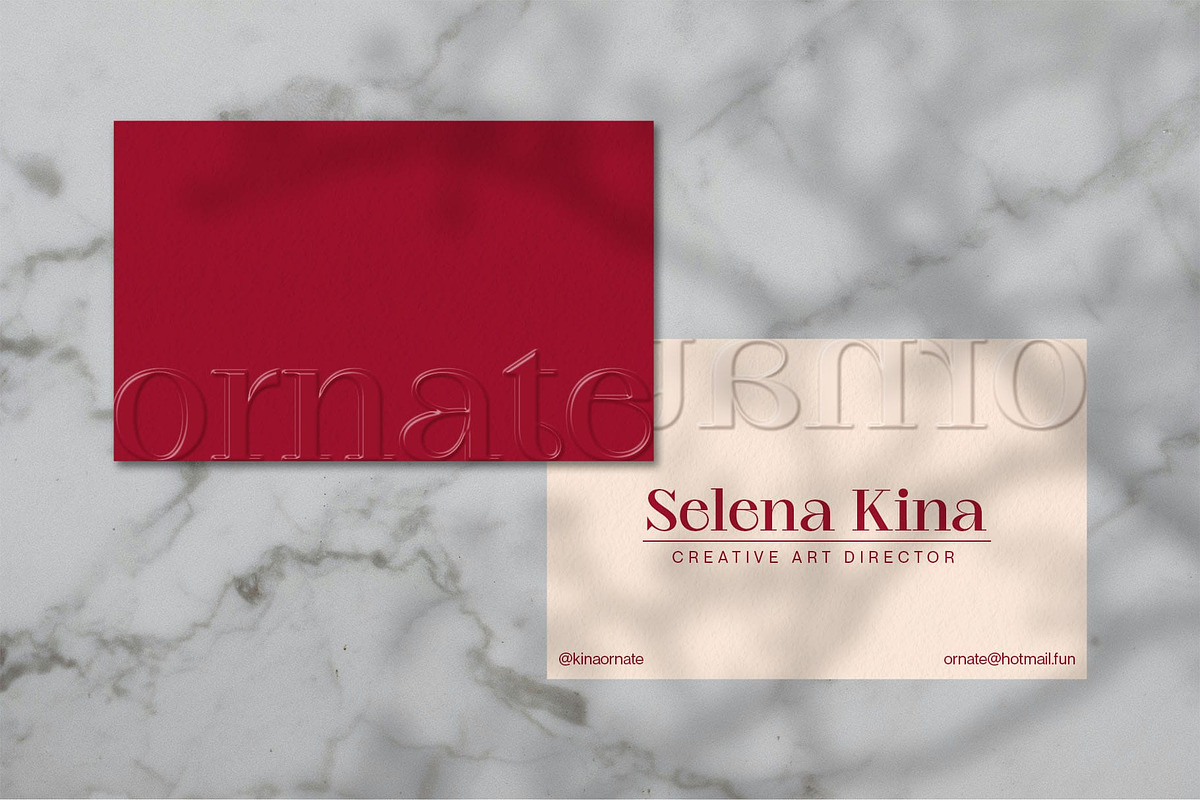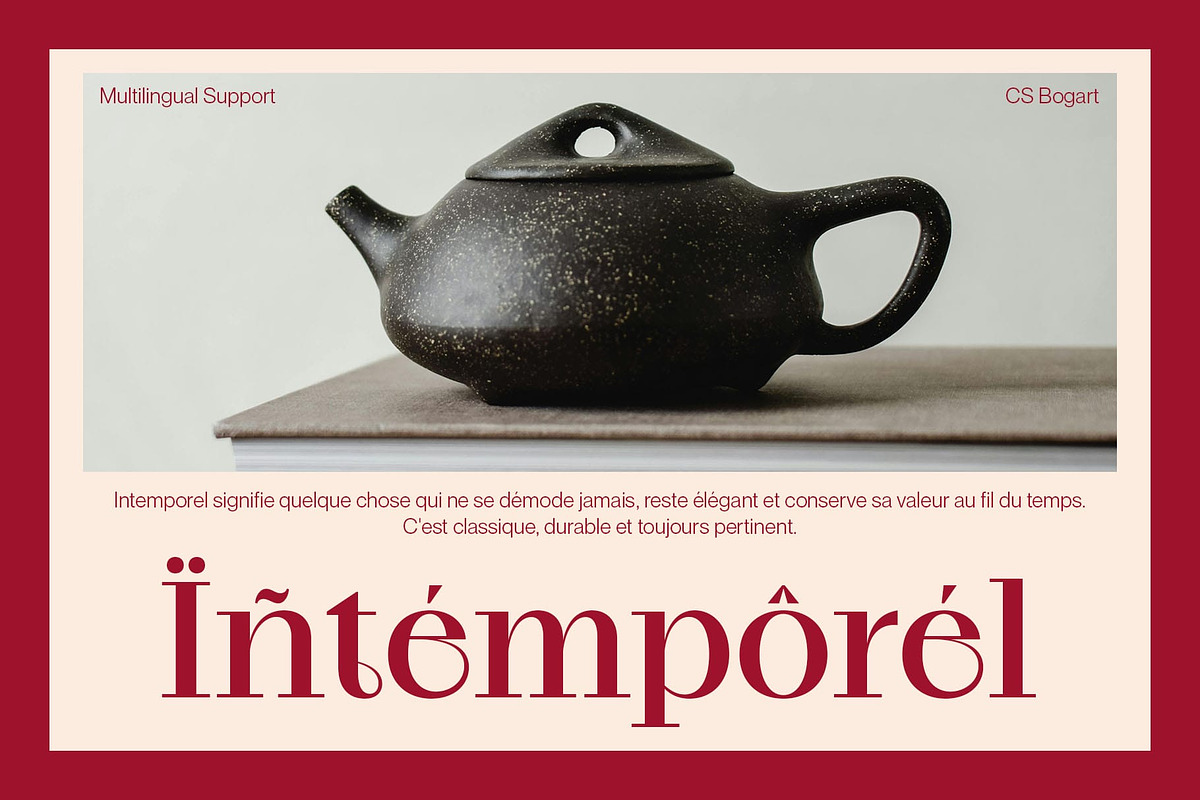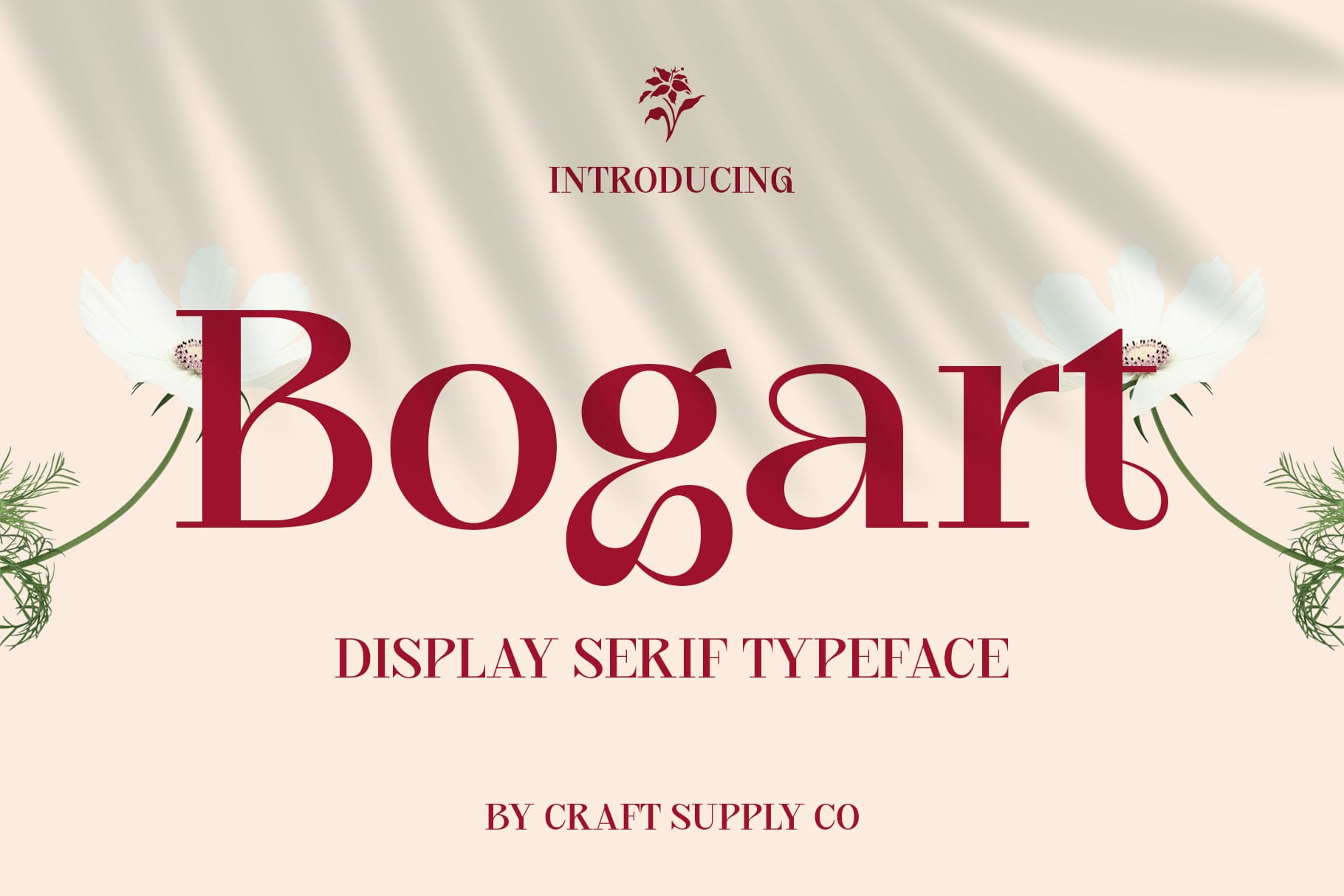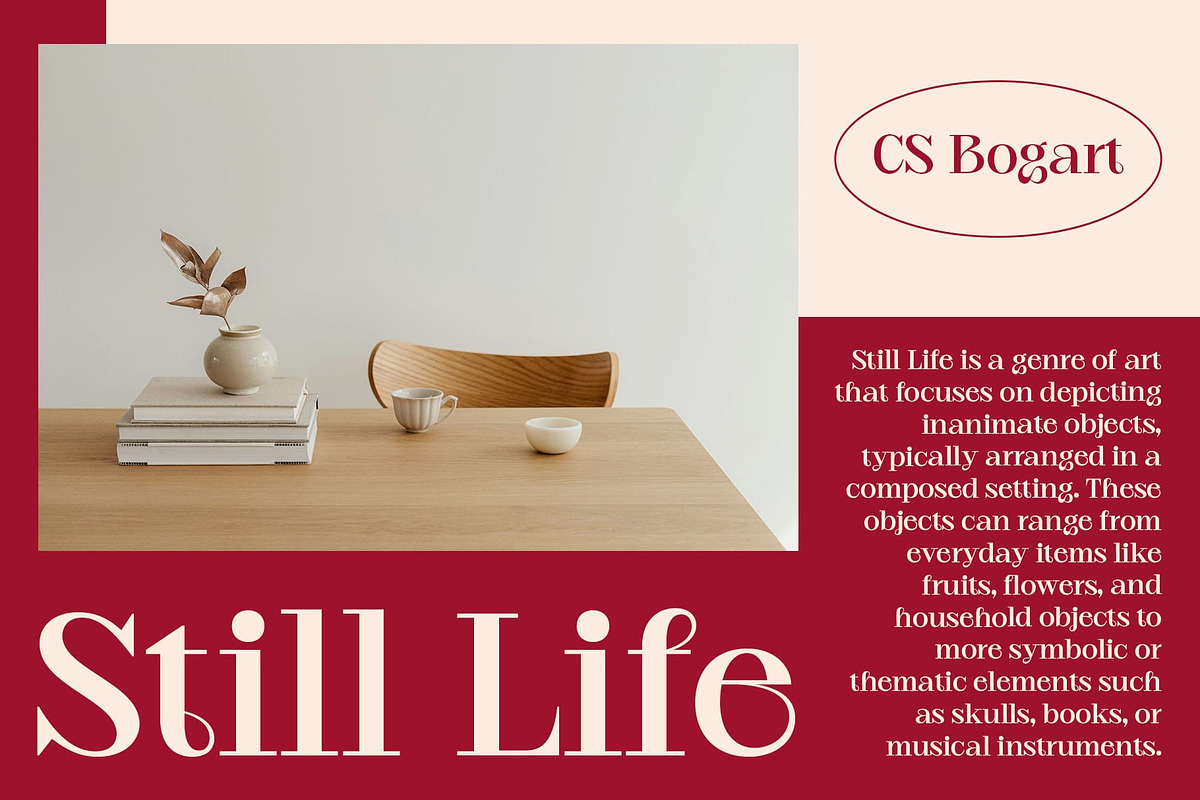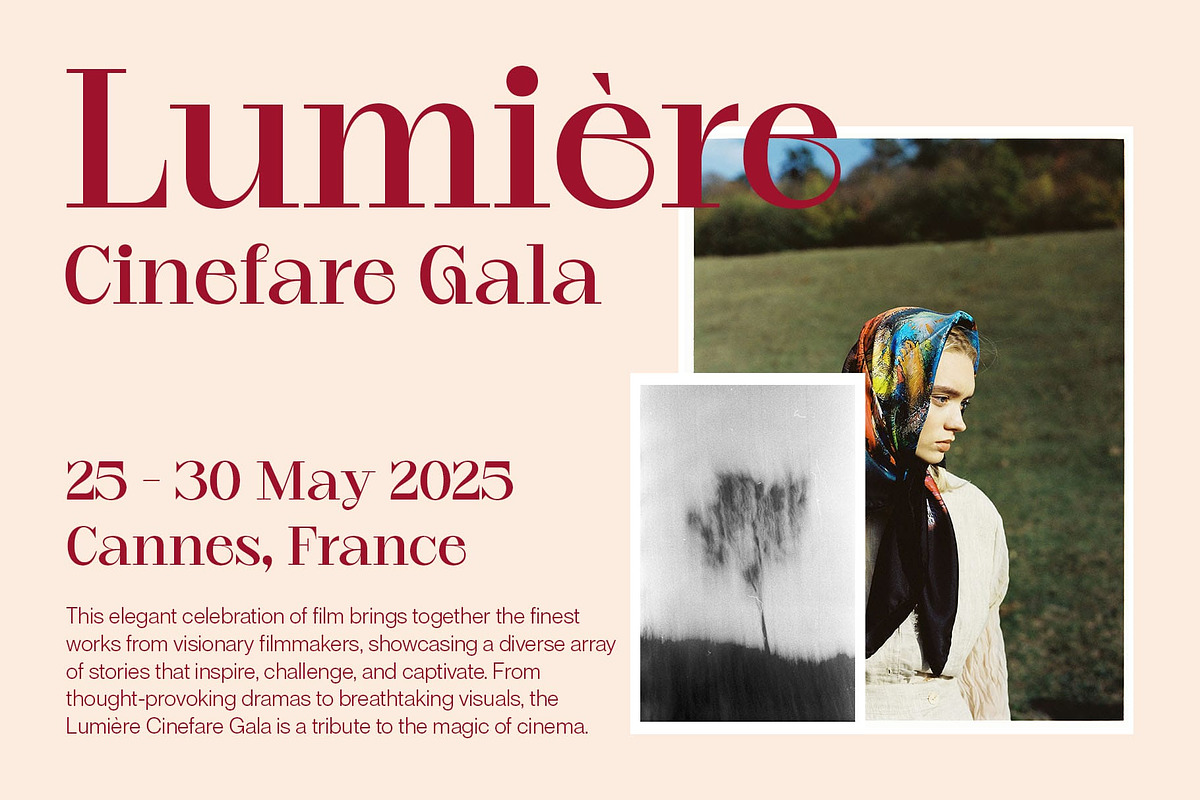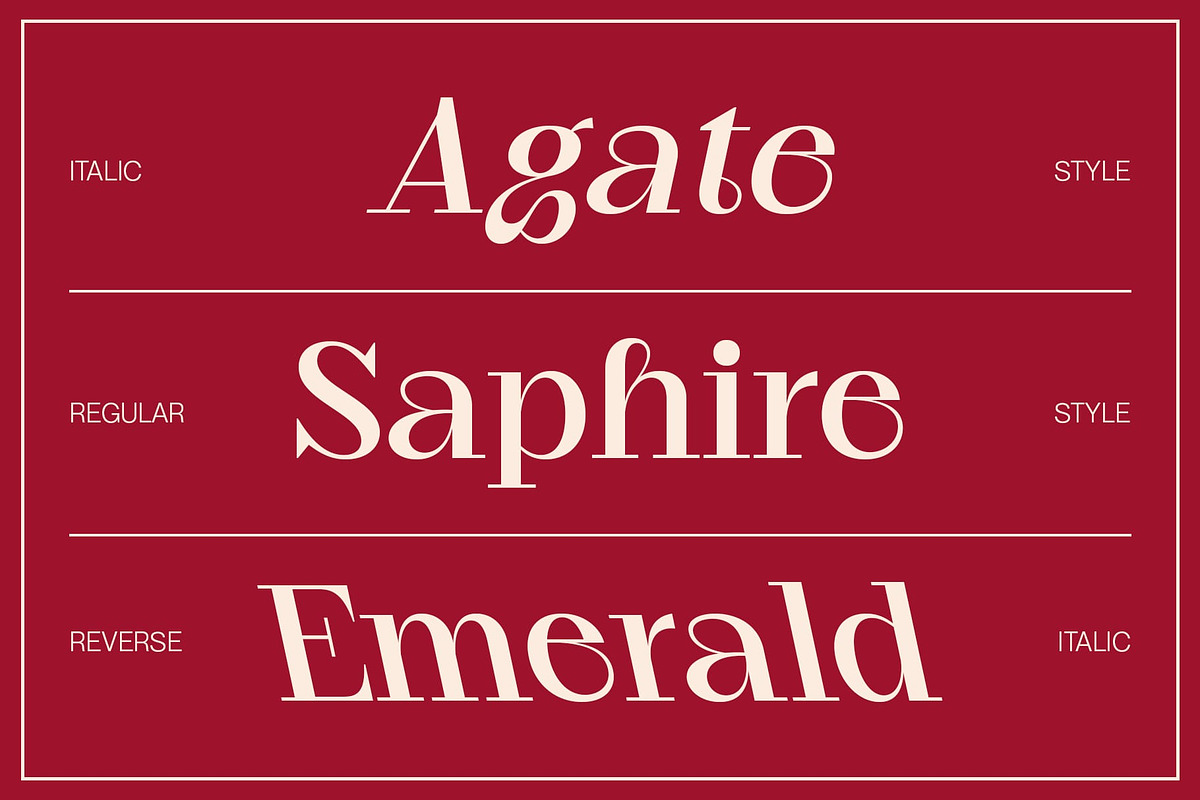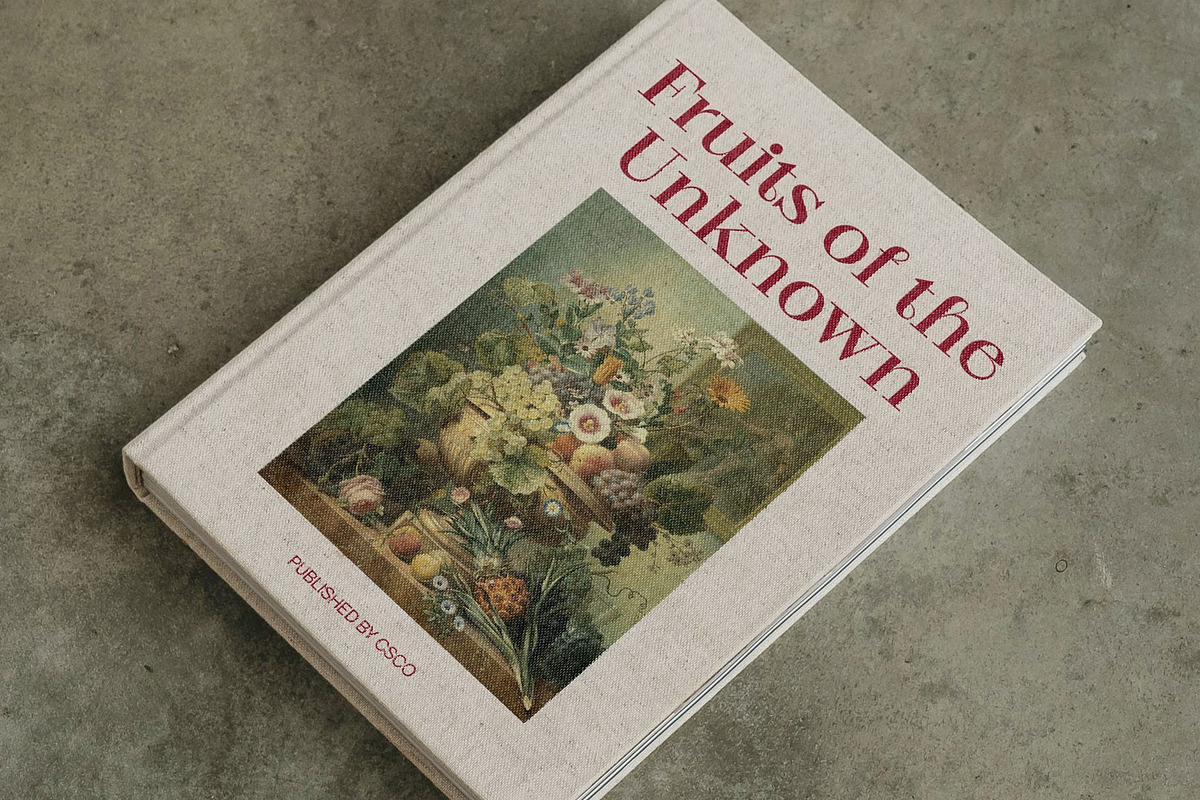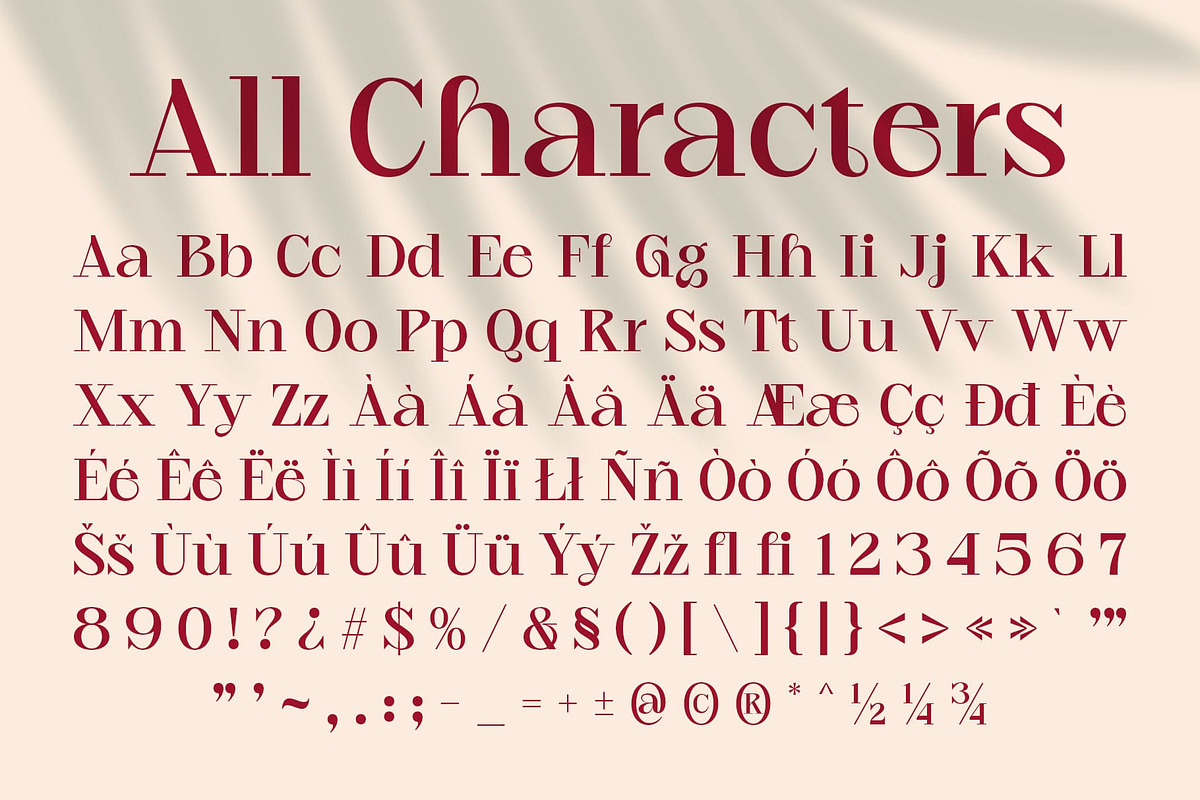
CS Bogart – Aesthetic Font
CS Bogart – Aesthetic Font: Timeless Elegance with a Modern Touch
A Refined Display Serif with Timeless Appeal CS Bogart is a modern display serif font that embodies aesthetic elegance through its graceful proportions and exquisite detailing. Designed to balance sophistication and artistry, this font exudes a sense of luxury and refinement, making it an excellent choice for high-end and creative projects.
Graceful Curves and Subtle Contrast With its smooth curves and subtle contrast between thick and thin strokes, CS Bogart creates a harmonious and visually appealing structure. The refined serifs add a touch of sophistication, ensuring a polished yet approachable look. Whether used in headlines or elegant branding, this font maintains a timeless and artistic feel.
Perfect for Luxury and Creative Branding CS Bogart’s aesthetic design makes it an ideal choice for premium branding, fashion editorials, wedding invitations, and artistic layouts. Its stylish and versatile nature enhances the visual appeal of magazines, upscale logos, product packaging, and promotional materials that require a distinguished and memorable presence.
A Sophisticated and Versatile Typeface From modern elegance to classic beauty, CS Bogart seamlessly adapts to a variety of design needs. Its blend of refinement and contemporary flair makes it a go-to font for designers who seek an aesthetic, luxurious, and timeless touch in their work.
- CS Bogart Regular
- CS Bogart Italic
- CS Bogart Reverse Italic